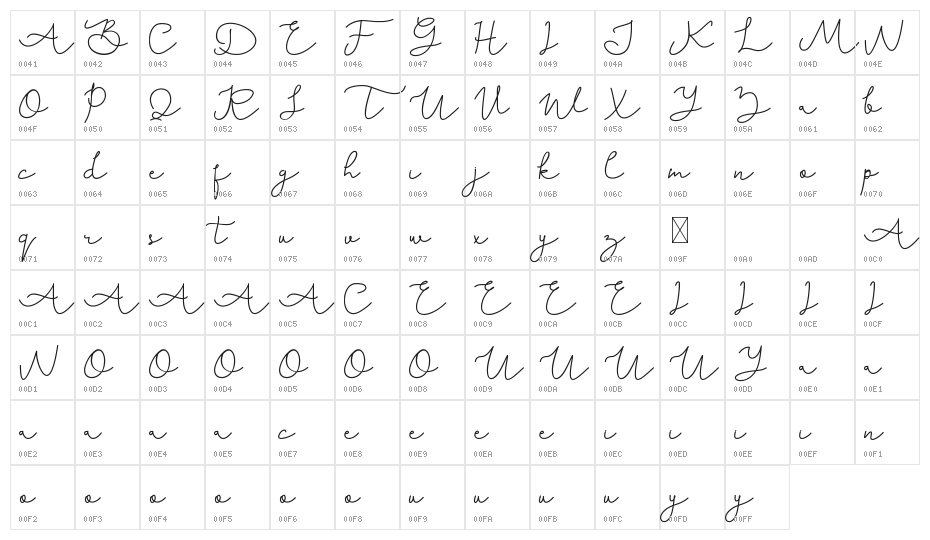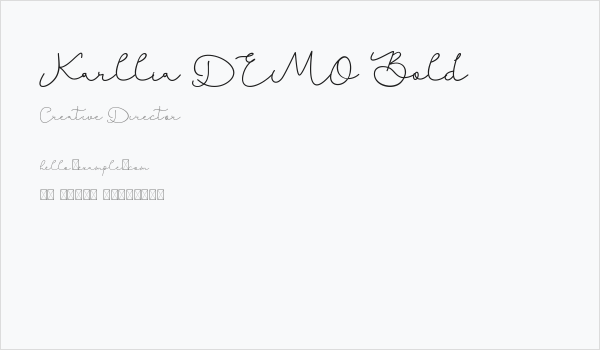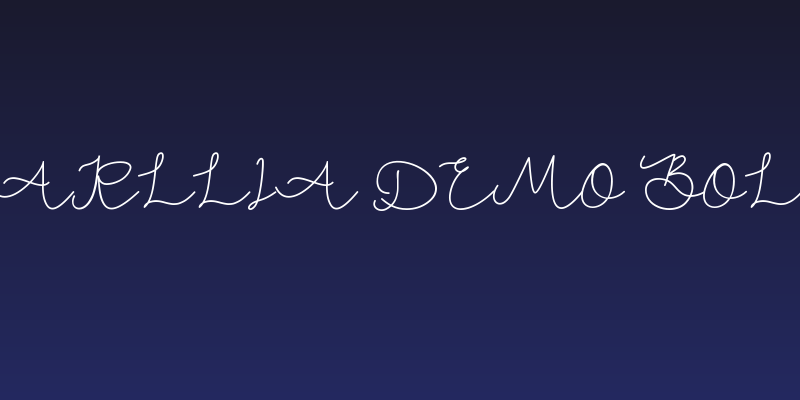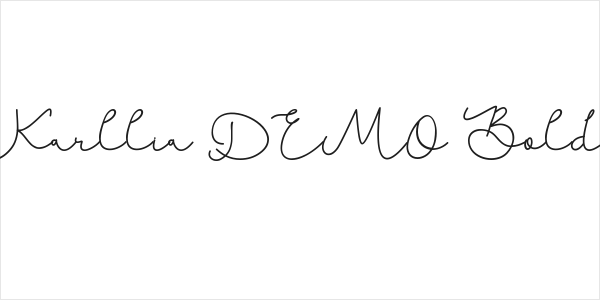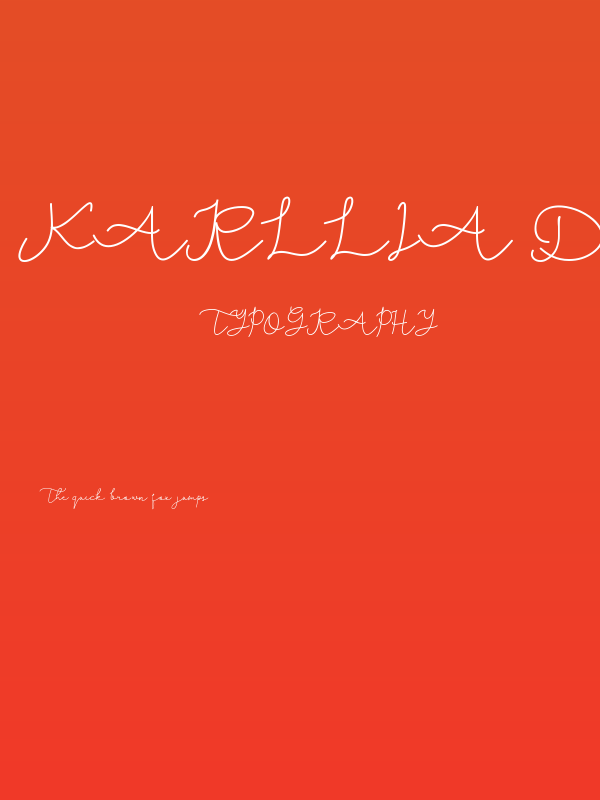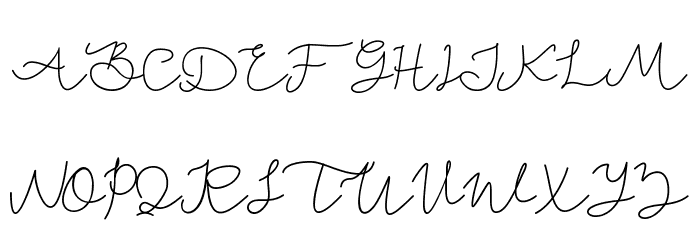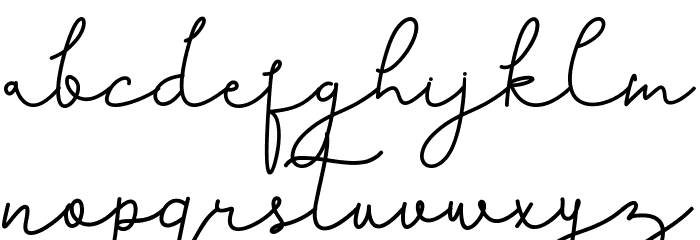
Karllia DEMO Bold Font
This font features an elegant and flowing script style, characterized by its cursive, handwritten appearance. The letters are interconnected, creating a seamless and fluid look that is both sophisticated and artistic. The uppercase letters are slightly more ornate, with delicate loops and swirls, while the lowercase letters maintain a consistent flow with gentle curves and smooth lines. The overall design exudes a sense of grace and refinement, making it ideal for projects that require a touch of elegance and personal flair. The font's delicate strokes and balanced proportions contribute to its readability, despite its decorative nature.
| Proposed Projects | Ideal for wedding invitations, greeting cards, branding, and elegant logo designs. |